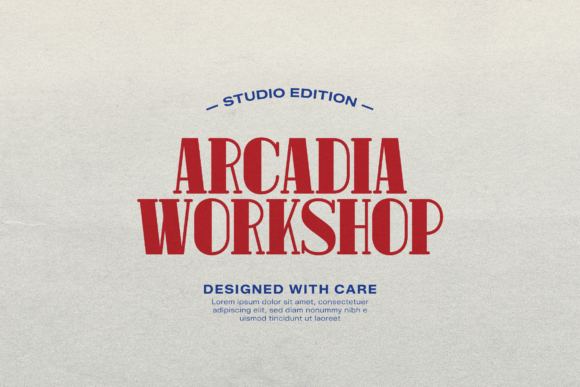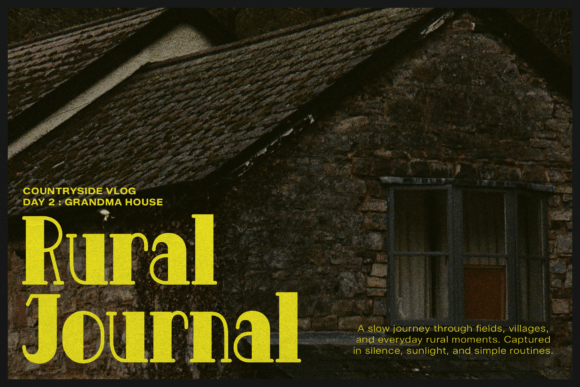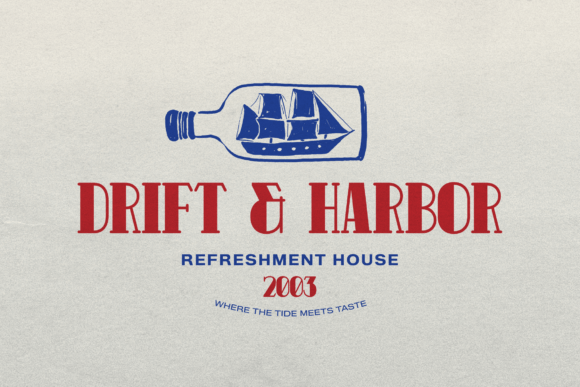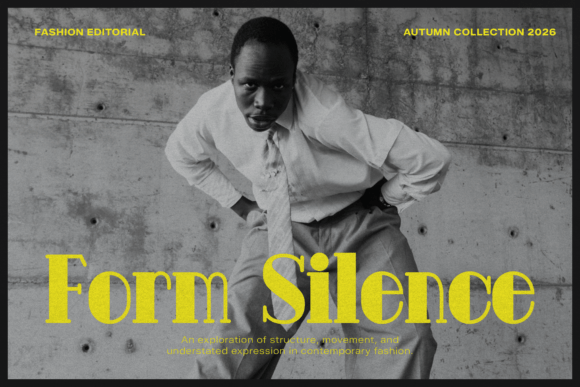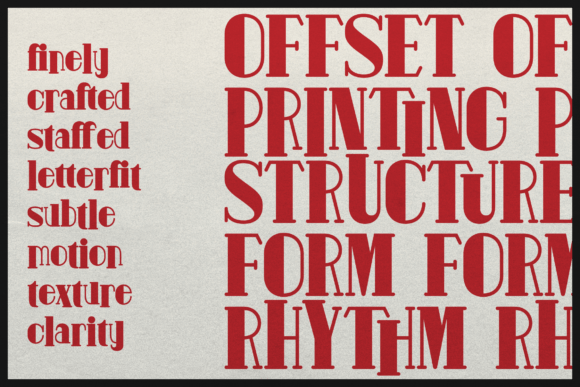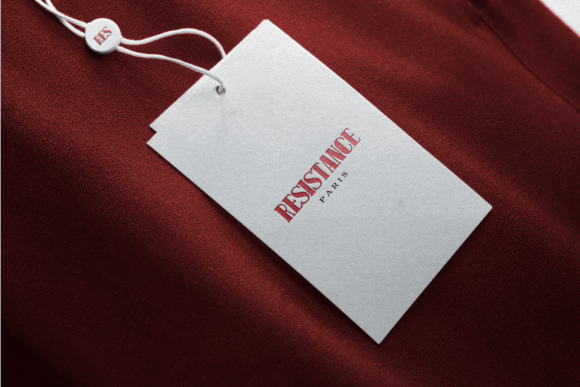
Introduction to Pitolia Font
Have you ever scrolled through a vintage magazine, mesmerized by the intricate typography and classic designs that transport you to a bygone era? For designers, capturing that essence of timeless elegance can be a challenge. But with the right tools, the impossible becomes possible. Enter Pitolia Font, a stunning decorative display serif that embodies the spirit of Art Deco.
This luxurious typeface is a design treasure trove, featuring high-contrast strokes, elongated verticality, and classic ligatures that evoke the glamour of “Old Hollywood.” Whether you’re working on a creative project, crafting a high-quality logo, or searching for a free download to elevate your design resource, Pitolia Font is the perfect choice to add a touch of sophistication and vintage charm to your work.
Key Features of Pitolia Font
• One of its unique characteristics is the elegant and modern design, making it perfect for creative projects that require a sophisticated touch.
Honest Review: Pitolia Font
As a designer, I’m always on the lookout for high-quality design resources that can elevate my creative projects. Recently, I came across the Pitolia Font, and I’m excited to share my honest review with you.
• ✨ Unique and stylish design: The Pitolia Font is perfect for designers who want to add a touch of elegance to their projects. Its sleek and modern design makes it an excellent choice for creative projects that require a sophisticated look.
• ✨ High-quality glyphs: The font features high-quality glyphs that ensure readability and clarity. Whether you’re using it for headings or body text, the Pitolia Font delivers.
However, there are some limitations to consider: ⚠️ The font may not be suitable for projects that require a transparent background, as it can be quite dense. Additionally, some users may find the font’s style a bit too bold for their taste.
Overall, I’m impressed with the Pitolia Font’s quality and style. While it may have some limitations, it’s an excellent addition to any designer’s toolkit. With its free download and high-quality design, it’s definitely worth checking out.
Tips for Getting the Most Out of Pitolia Font
For a high-quality design, use Pitolia Font on a transparent background to create a clean and modern look. You can also experiment with different font sizes and styles to add visual interest to your creative project.
Pitolia Font is ideal for various design projects, including logos, business cards, and social media graphics. Its high quality and free download make it a popular design resource among designers and non-designers alike.